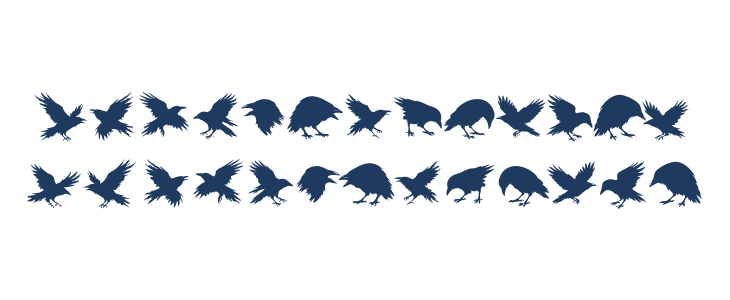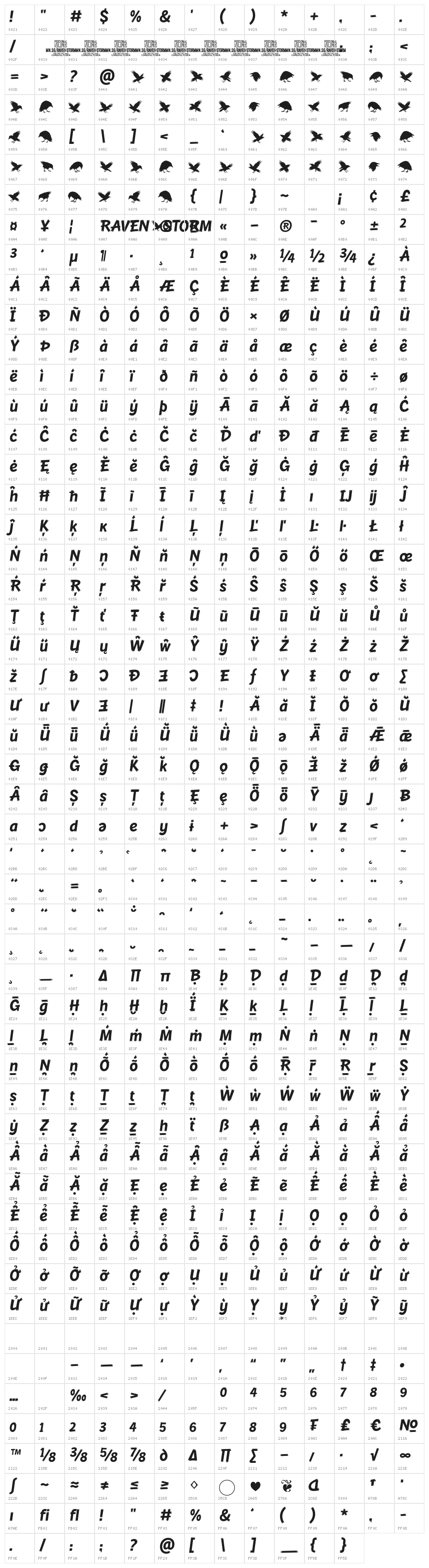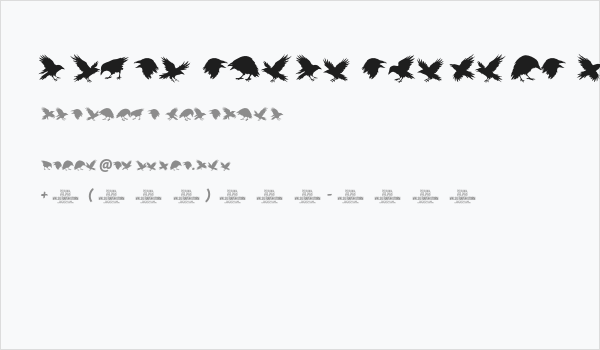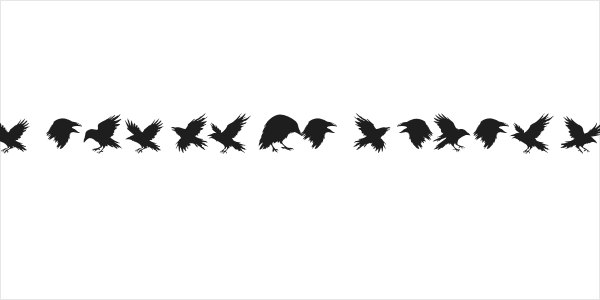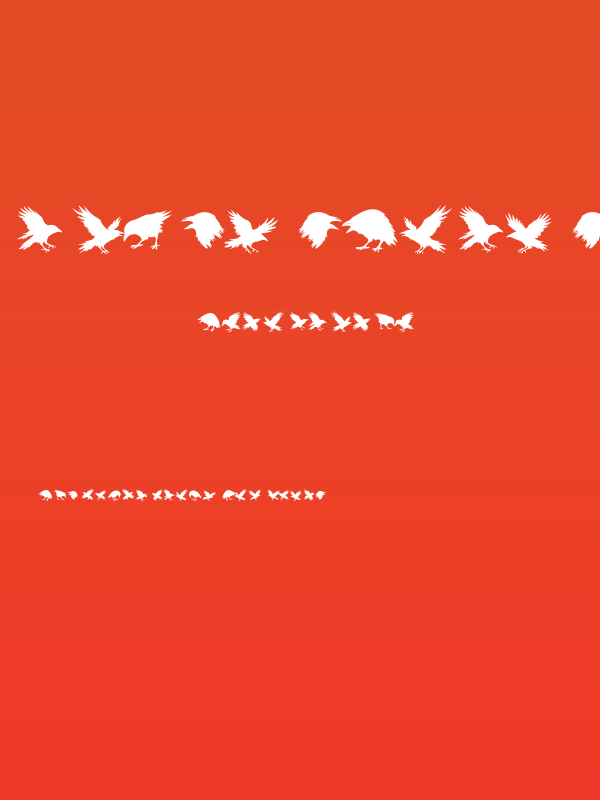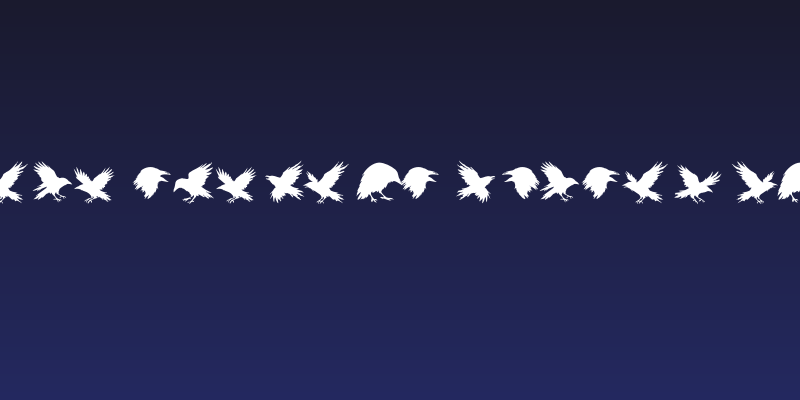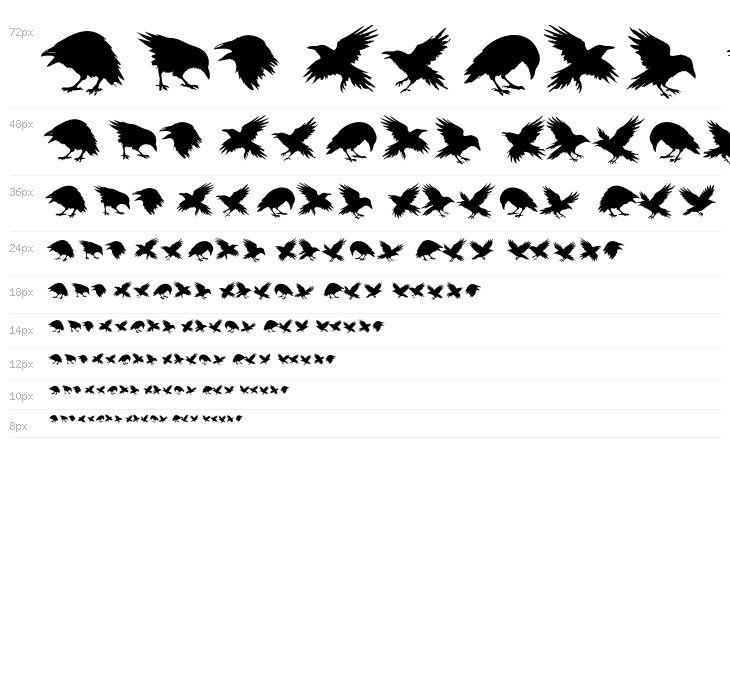
Raven Storm Symbols PERSONAL Regular Font
Raven Storm Symbols PERSONAL Regular Description
A decorative symbol font featuring various silhouettes of ravens in different poses, along with bold, distressed punctuation and special characters. The glyphs are highly stylized and illustrative, focusing on bird imagery rather than traditional letterforms.
| Overall Style | Decorative, Gothic, Thematic |
| Use Case | Logos, Posters, Themed Graphics, Titles |
| Proposed Projects | Halloween graphics, gothic posters, fantasy book covers, themed event invitations, logo design for dark or mysterious brands. |